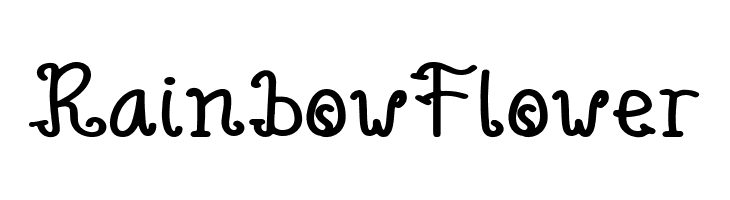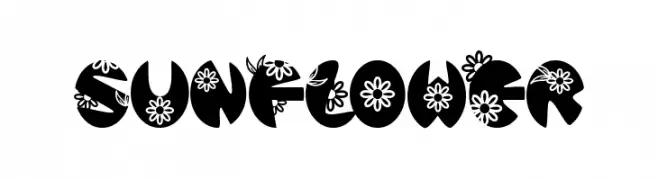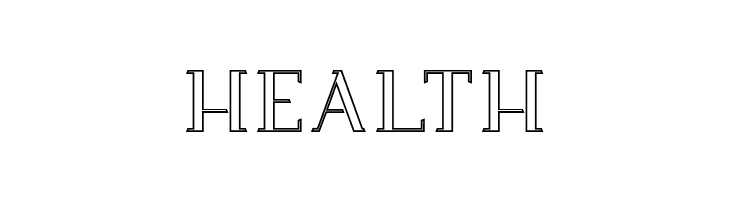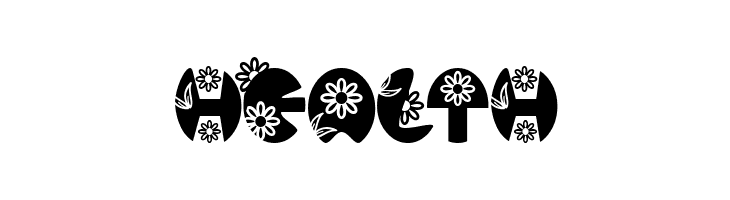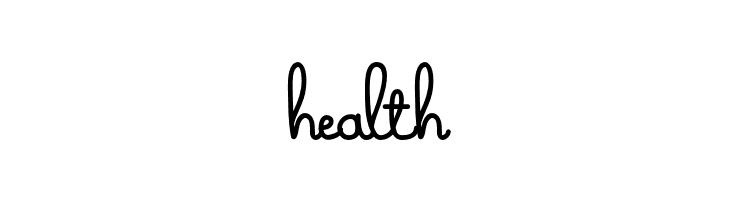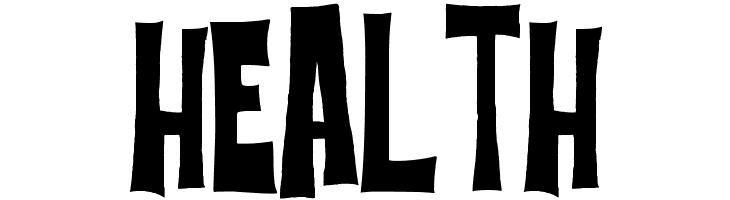
A decorative outline font with a geometric, modern style and consistent line weight.
A graceful script font with fluid, connected strokes and a personal touch.
A bold, decorative font with floral patterns for a whimsical, nature-inspired look.
A playful, modern handwritten font with a lively and energetic style.
A playful, cursive-style font with interconnected, flowing letters.
A playful, bold handwritten font with a modern twist.
A playful, handwritten font with curly, decorative strokes.
A playful, handwritten script font with decorative swashes and loops.
A lively and elegant script font with smooth, cursive letterforms.
A bold, artistic font with a hand-drawn, playful style.